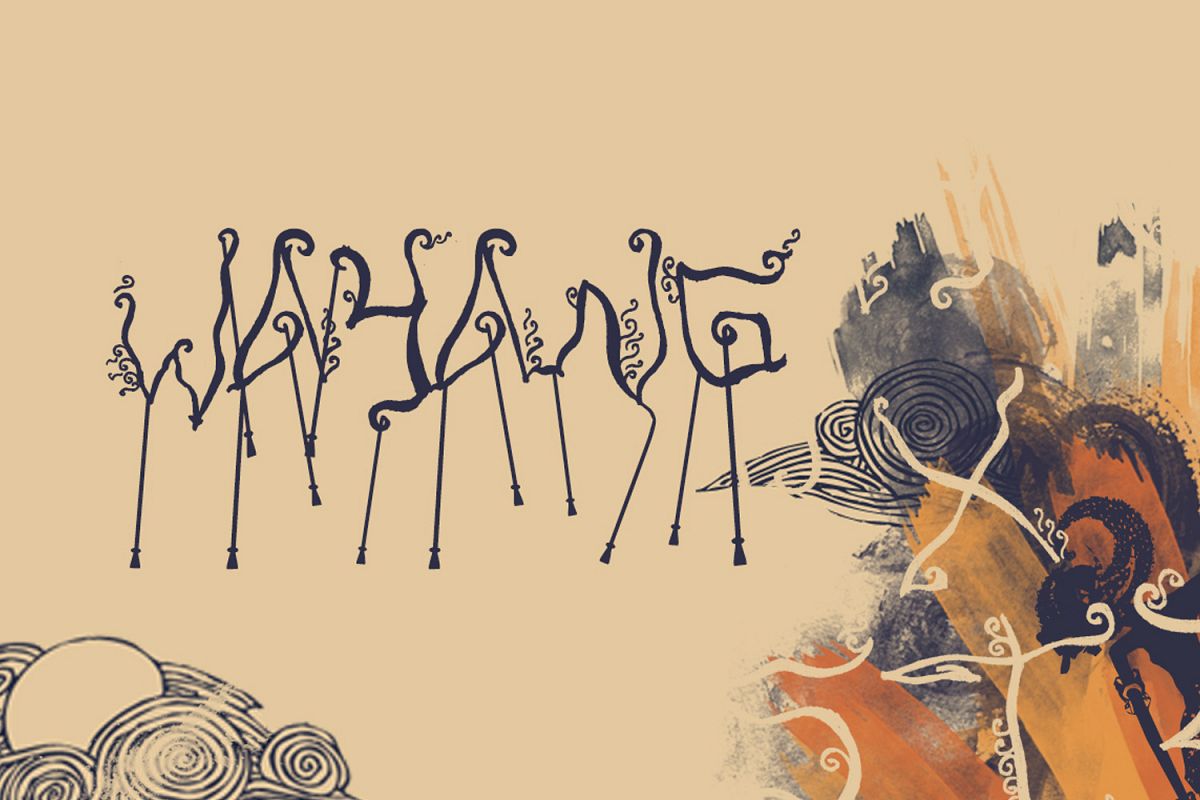
FTF Indonesiana Wanangkoe
Inspired by local wisdom Indonesia: puppets / wayang, because the puppet / 'wayang' has been recognized by the world as an Indonesian cultural heritage.